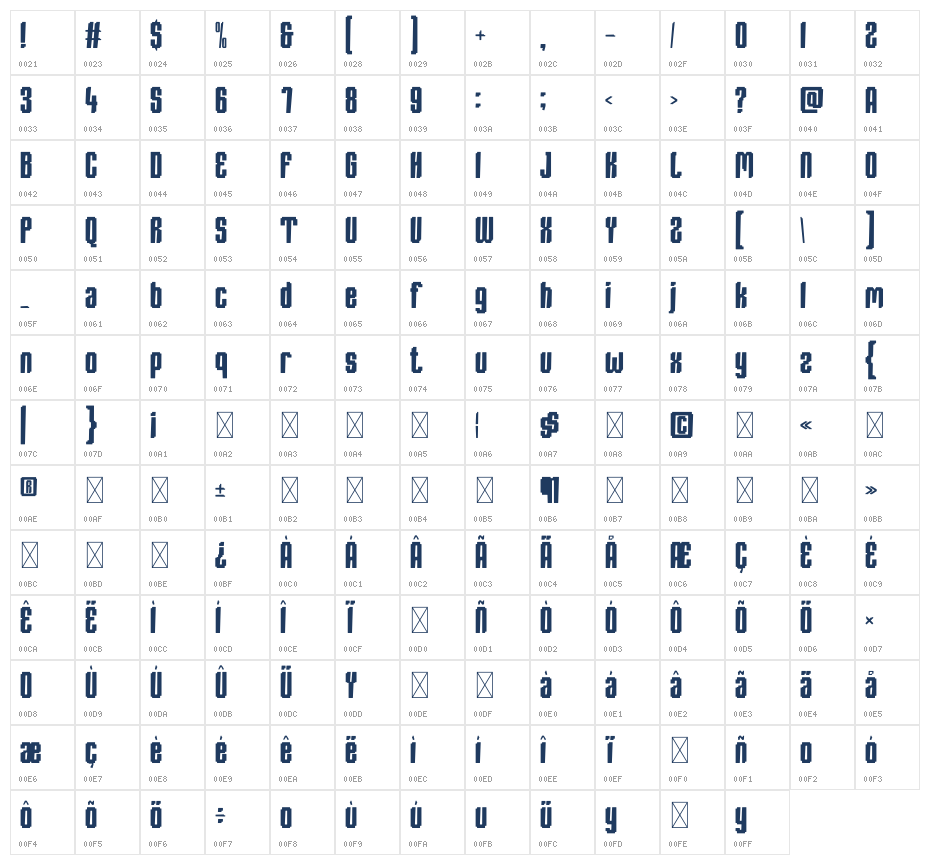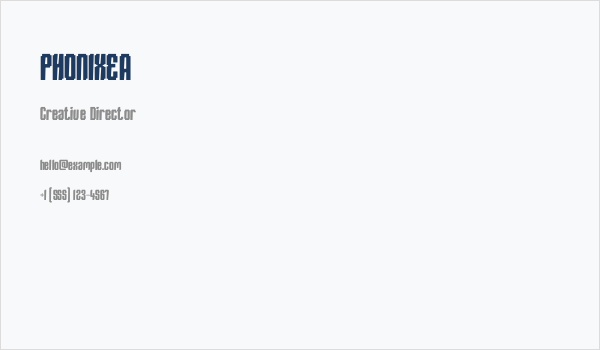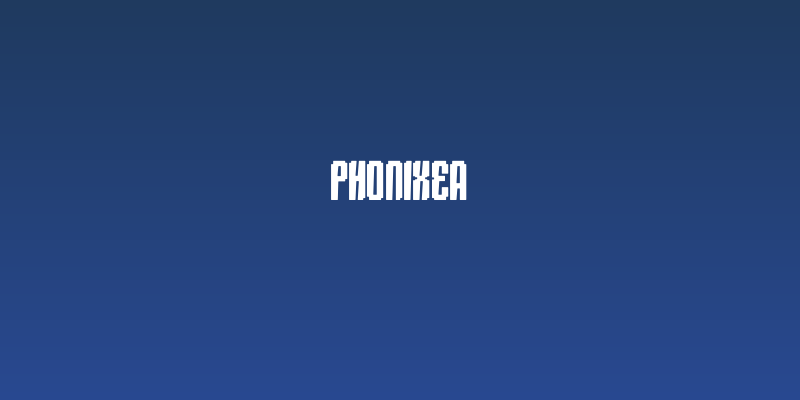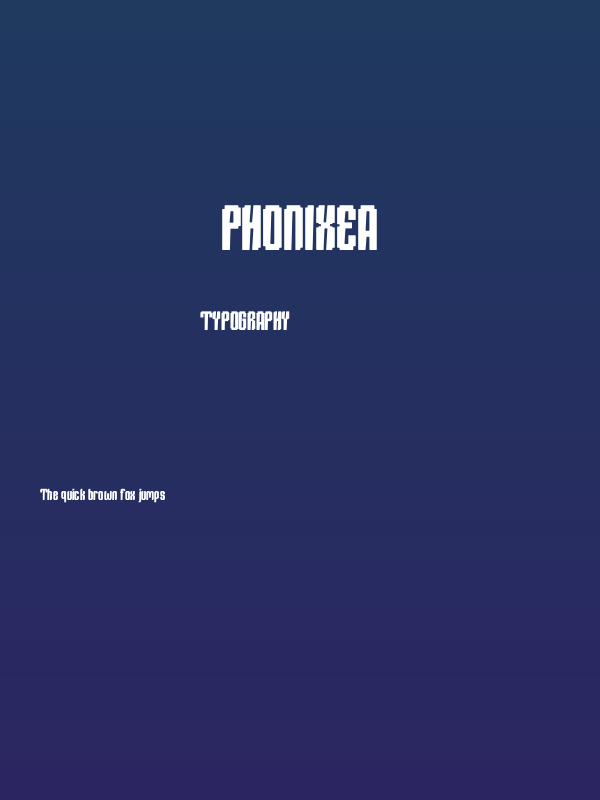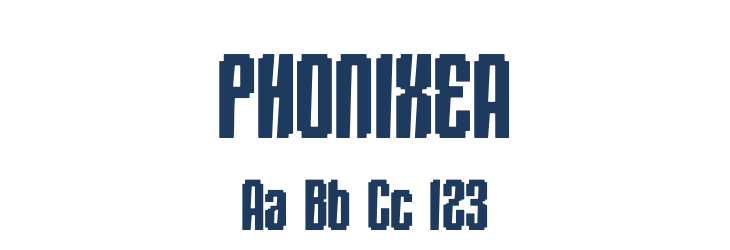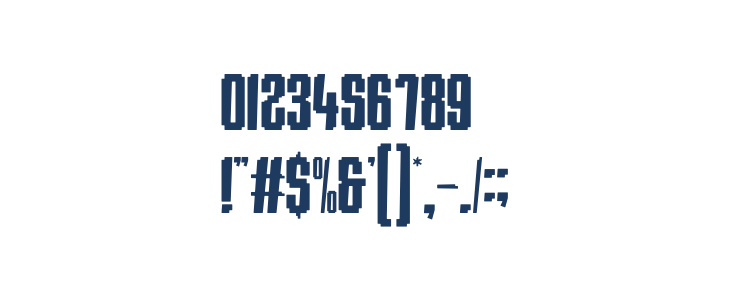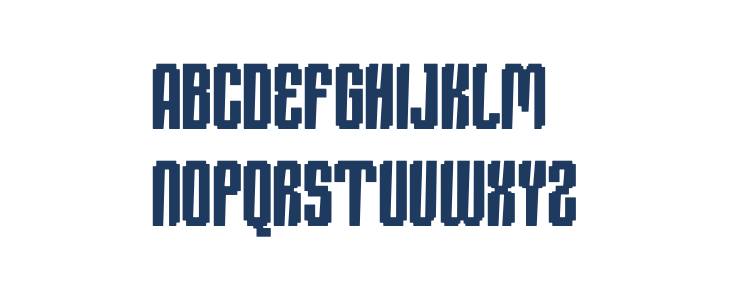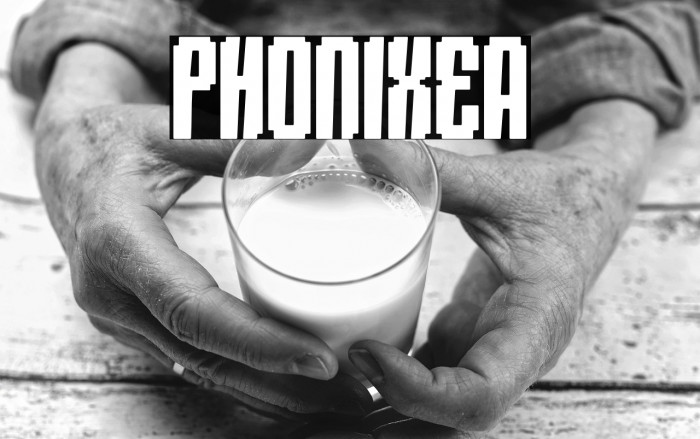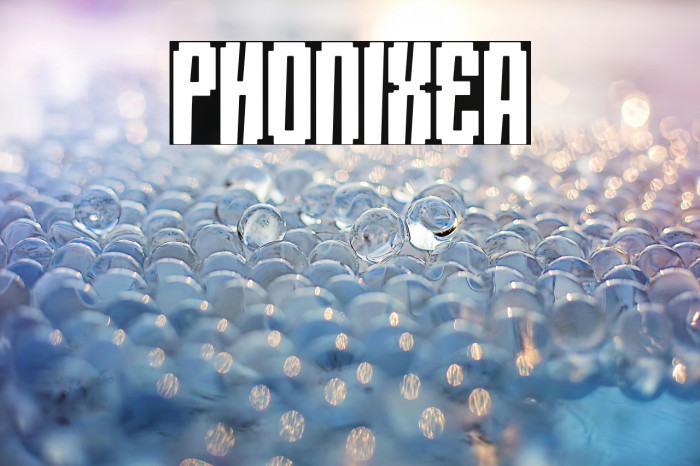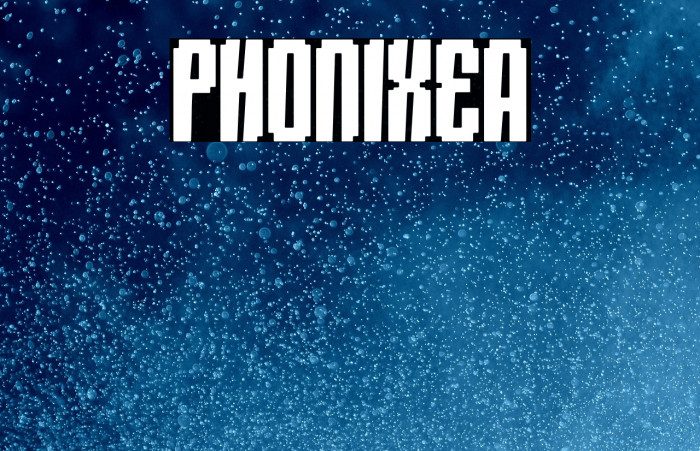
PHONIXEA Font
Blocky, pixelated, pixel-art style font with a bold and geometric appearance.
| Overall Style | Retro, Pixel Art, Digital |
| Use Case | Headlines, Logos, Digital displays, Video game titles |